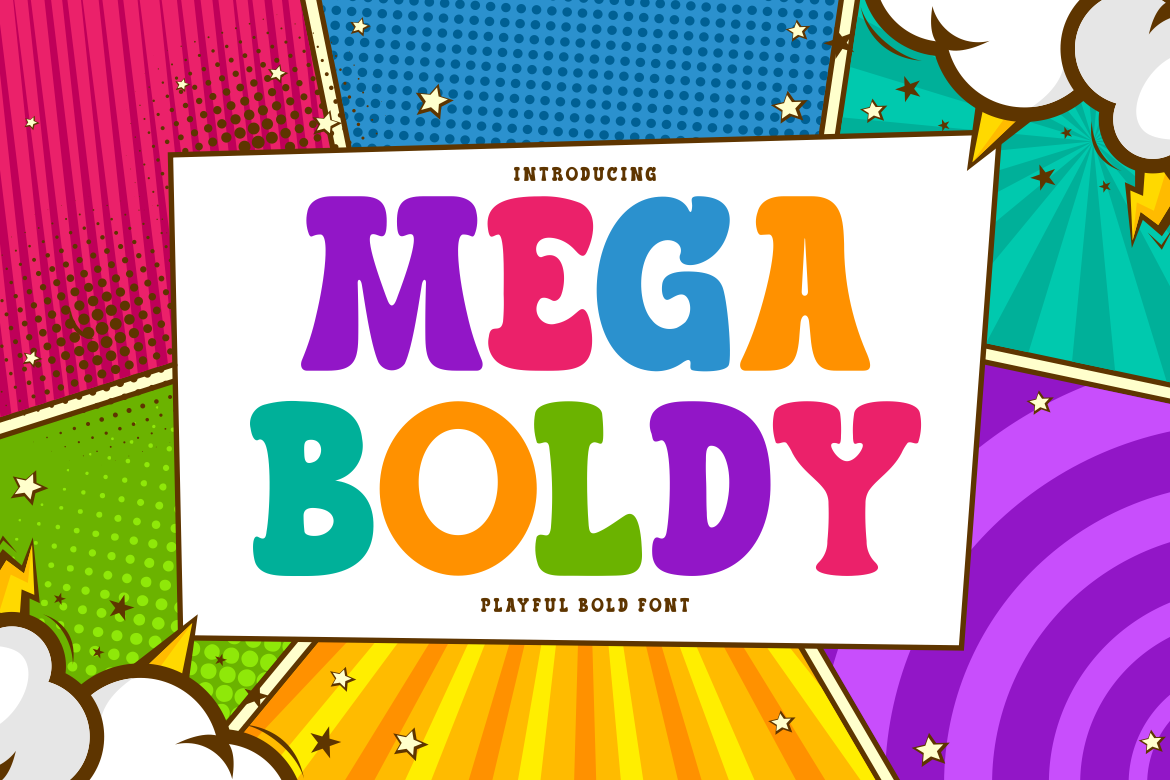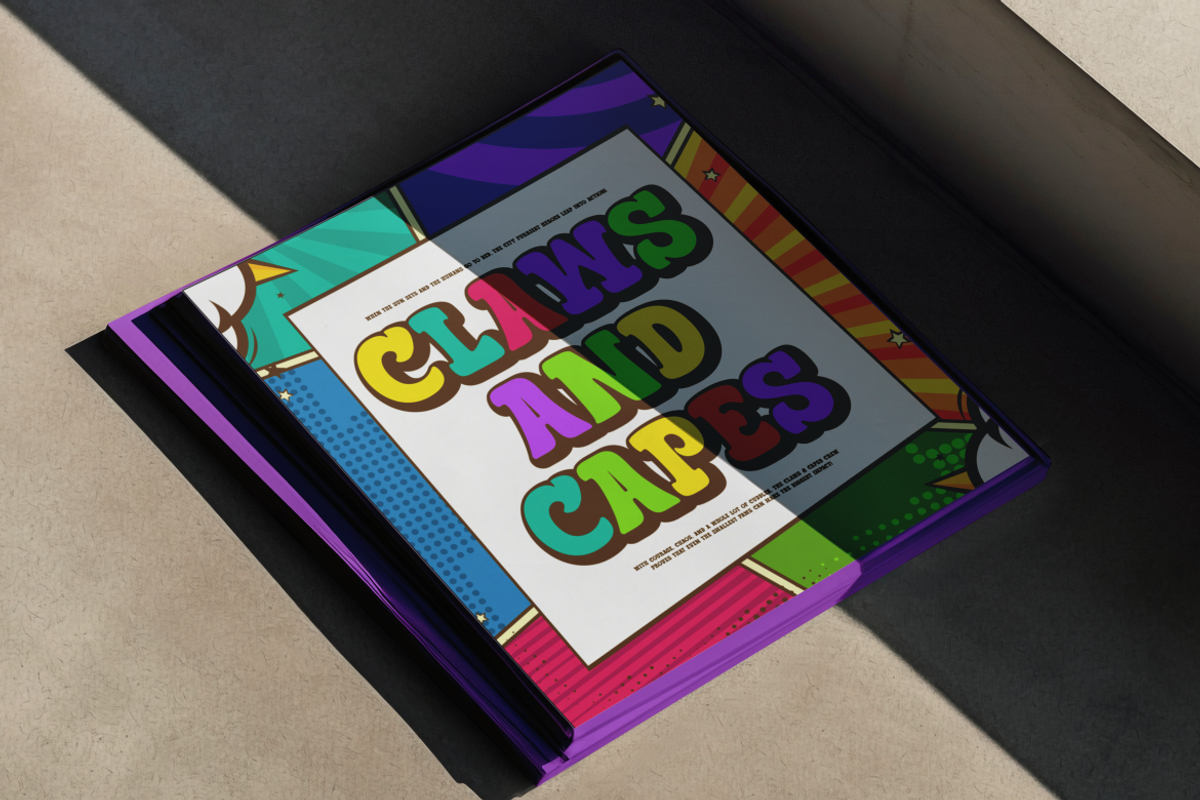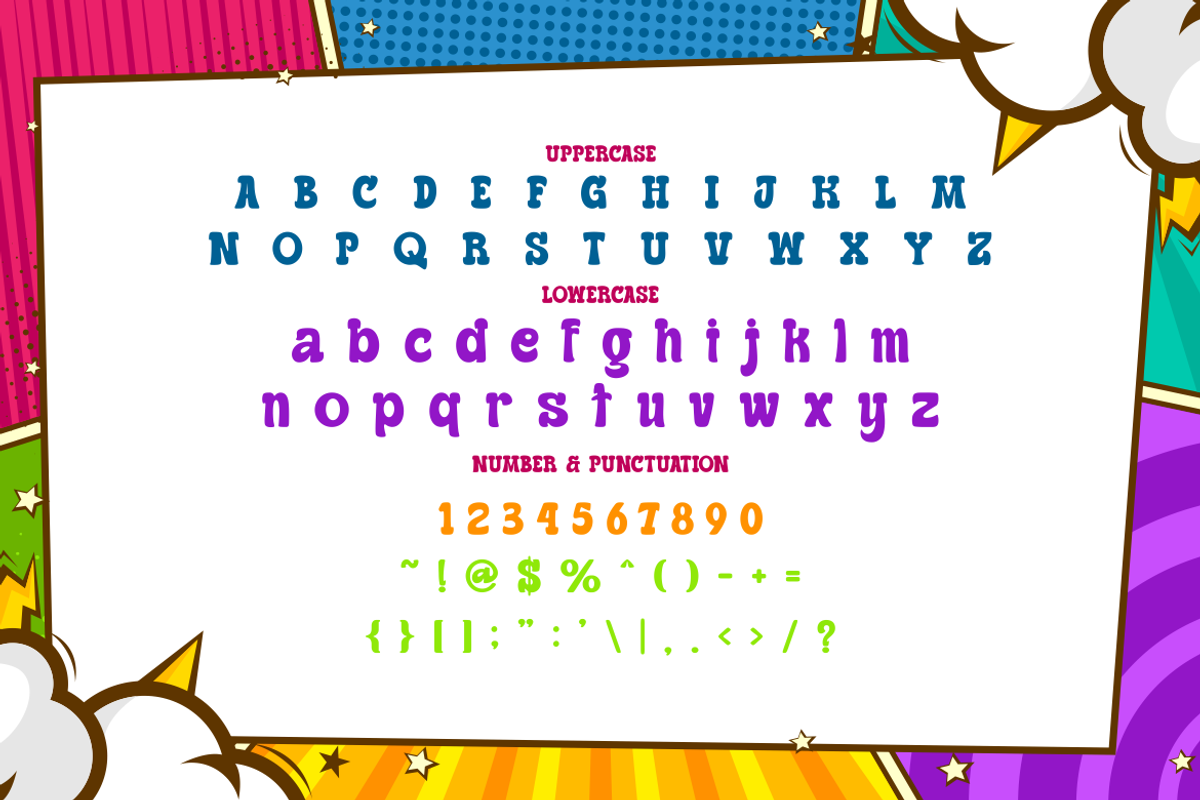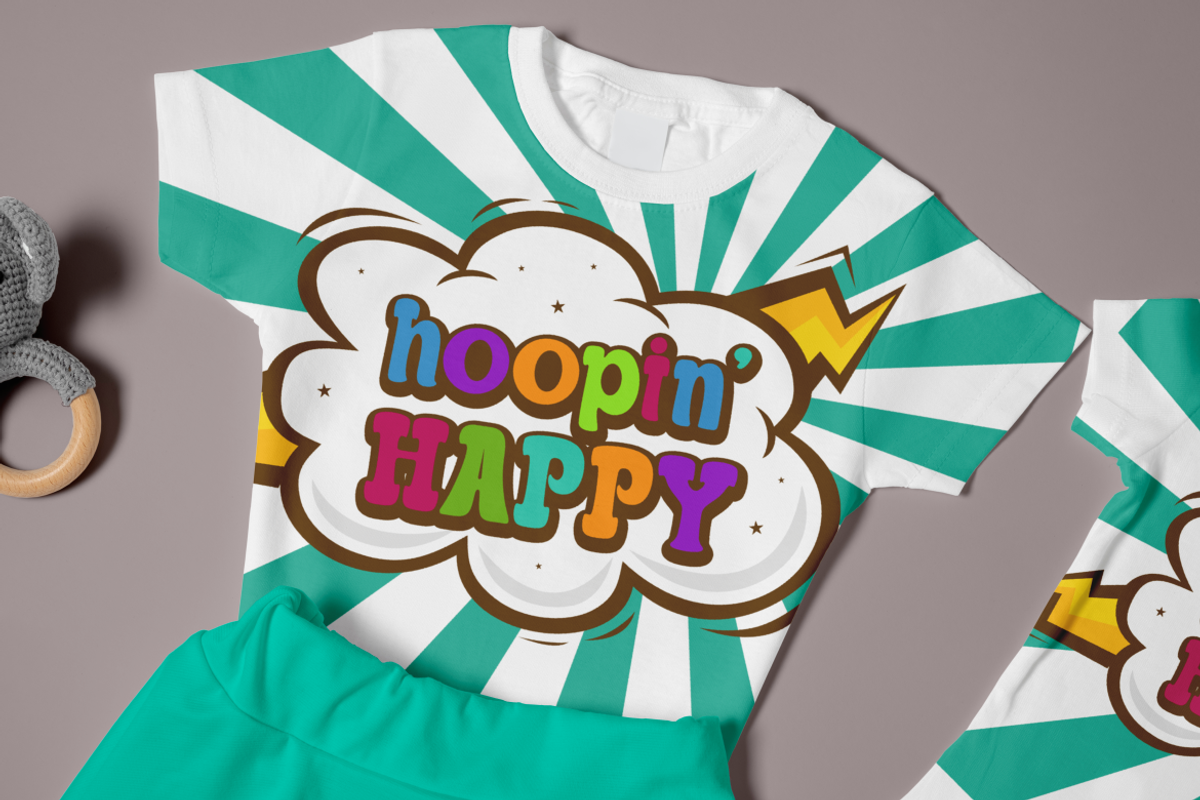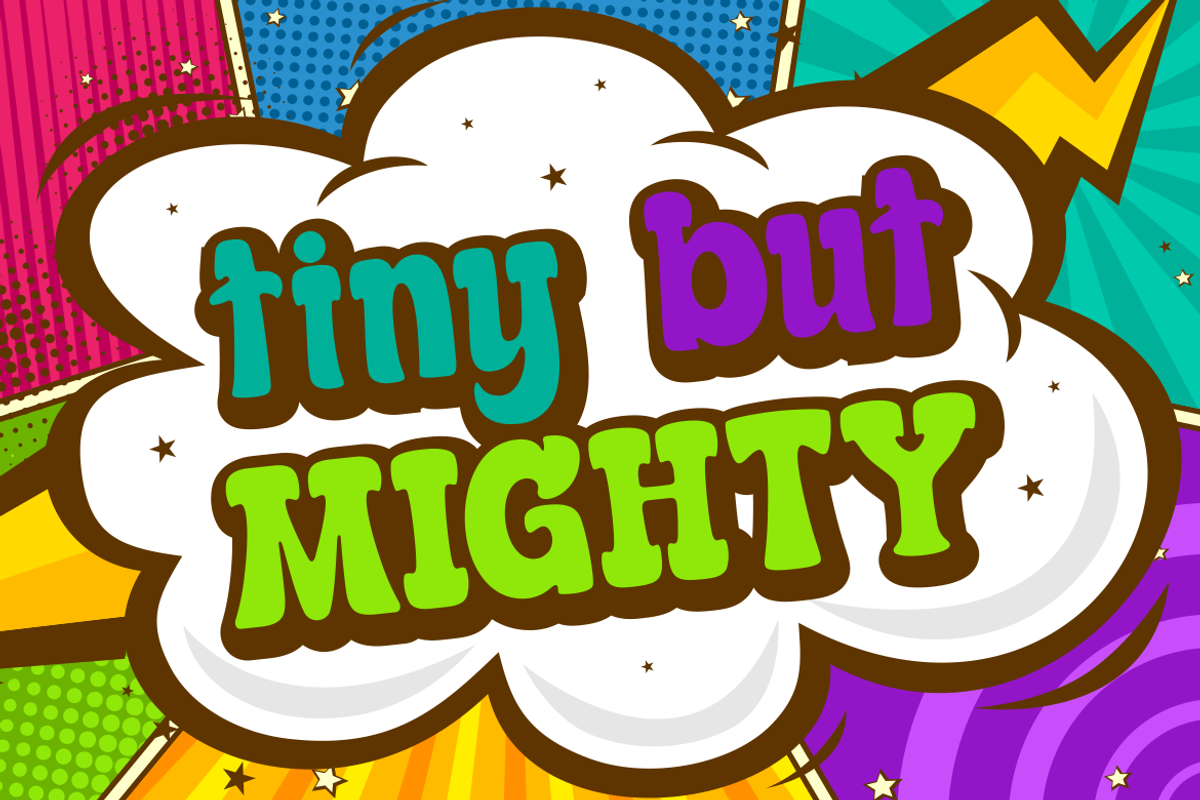
Mega Boldy - Playful Bold Font
Mega Boldy – Playful Bold Font is a dynamic and cheerful display typeface designed to spark joy and creativity across any visual platform. This font features chunky, rounded letterforms with an exaggerated bounce, reflecting the energy of comic books, kids’ cartoons, and retro pop art. Each character is crafted with smooth, bubbly strokes and subtly varied curves, offering a whimsical feel while retaining legibility at all sizes. The vibrant, multicolor previews emphasize Mega Boldy’s versatility in high-contrast, colorful design scenarios—perfect for fun-themed branding, educational materials, children’s apparel, or packaging design. Its uppercase and lowercase set, along with a full suite of numerals and punctuation, supports flexible typographic compositions, while the bold weight gives every layout a confident presence.
Visually, Mega Boldy thrives in layouts that demand a punch of positivity—especially when layered over playful backdrops like comic bursts, star patterns, or rainbow rays. The font’s proportions are balanced for both headline impact and quirky subtitling, making it ideal for applications such as T-shirts, birthday cards, storybook covers, and kids’ event posters. Whether you're shouting “Tiny But Mighty” or creating titles for a playful superhero zine like “Claws and Capes,” Mega Boldy delivers a voice that is both loud and lovable. It’s not just a typeface—it’s a personality in print.